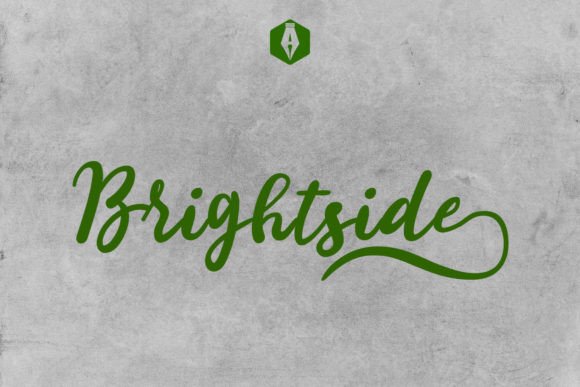
Welcome to the era of expressive typography, where fonts ignite creativity and captivate audiences. Let us introduce you to an exceptional script font that's bound to transform your designs - the Brightside-Brush Font.
With its handcrafted brush strokes, Brightside-Brush Font exudes charm and character, bringing a refreshing human touch to your creations. Step into a world where your designs stand out, where your message leaves an unforgettable impression.
Reasons Why Brightside-Brush Font is Your Design Ally:
1. Unparalleled Distinctiveness: Brightside-Brush Font isn't just another font; it's an artistic masterpiece. Its unique brush-lettering style adds individuality and flair to your designs, helping you make a statement that resonates with your audience.
2. Adaptable Versatility: Whether you're a seasoned graphic designer or a budding creative enthusiast, Brightside-Brush Font is your versatile companion. From logos that demand attention to posters that ignite imagination, web banners that captivate to social media posts that engage, this font seamlessly adapts to your every need.
3. Seamless Harmony: Say goodbye to compatibility woes. Brightside-Brush Font works flawlessly with your preferred design software, ensuring a smooth and seamless creative process. Effortlessly integrate this font into your existing design workflow and witness the magic unfold.
4. Attention-Grabbing Power: Bold, expressive, and utterly captivating, Brightside-Brush Font commands attention effortlessly. Use it for headlines that demand a second glance, slogans that stick in the mind, or calls to action that inspire immediate response. Make your message impossible to ignore.
5. Professional Finesse: While it exudes personality, Brightside-Brush Font doesn't compromise on professionalism. Each character is meticulously crafted to deliver impeccable legibility, ensuring your message is communicated with clarity and impact.
Step into the Limelight with Brightside-Brush Font:
Visualize the allure of a font that not only conveys your message but also stirs emotions and establishes an instant connection with your audience. Brightside-Brush Font isn't just a font; it's an experience that transforms creative visions into stunning realities.
Ready to ignite your creativity and leave an everlasting impression? Don't resist the allure of the Brightside-Brush Font. Experience the transformative power of typography. Elevate your designs. Captivate your audience. Brighten your future with Brightside-Brush Font.